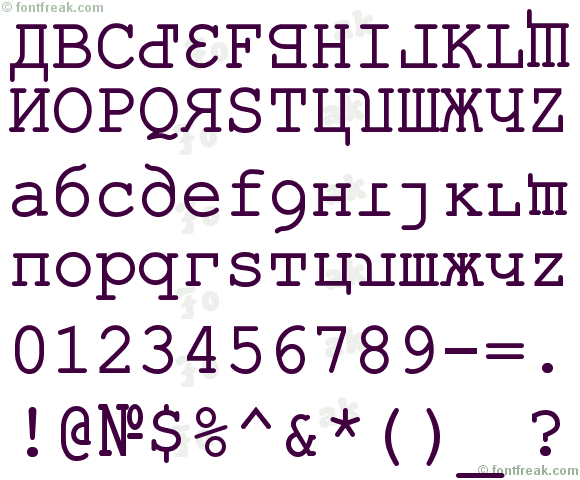
Kremlin Kourier II Bold
About Kremlin Kourier II Bold
Kremlin Kourier II Bold is a distinctive display typeface created by Bolt Cutter, designed with a unique blend of modernity and a nod to traditional type styles. As a bold serif font, it features strong, commanding strokes that capture attention while maintaining readability. The typeface exhibits a moderate contrast in stroke weight, giving it a dynamic feel that is perfect for various design contexts. Its spacious letterforms ensure clarity, making it an excellent choice for both digital and print applications.
This font is particularly well-suited for a variety of creative projects. It shines in the realm of movie posters, where its striking presence can evoke a sense of drama and urgency. Additionally, Kremlin Kourier II Bold is ideal for restaurant menus, where the boldness can highlight menu items effectively, enticing customers with its visual appeal. Wedding invitations can also benefit from its unique character, adding a touch of elegance and sophistication to any celebration. Content creators and graphic designers will find it perfect for social media graphics, where eye-catching typography is essential for engagement.
What sets Kremlin Kourier II Bold apart is its ability to balance boldness with elegance, making it a versatile choice for various applications. As a standout option in the world of display fonts, it offers a unique aesthetic that can elevate any project. For those interested, a Kremlin Kourier II Bold font free download is available, allowing users to experience its distinctive charm firsthand.